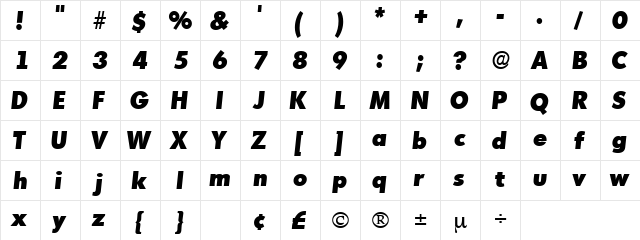
AdmisiDisplaySSK Italic
Design Context for AdmisiDisplaySSK Typeface
AdmisiDisplaySSK is built around its visual character rather than neutral utility — its distinctive forms are designed to make an impression at display sizes. The slanted form adds forward momentum and visual energy.
Font Pairing: Pair with a clean neutral sans-serif for body copy to let AdmisiDisplaySSK's character lead without overwhelming the composition.
Pro Tip: Use AdmisiDisplaySSK exclusively at display sizes — it was designed to be seen, not read at length. Let a neutral companion handle body copy.